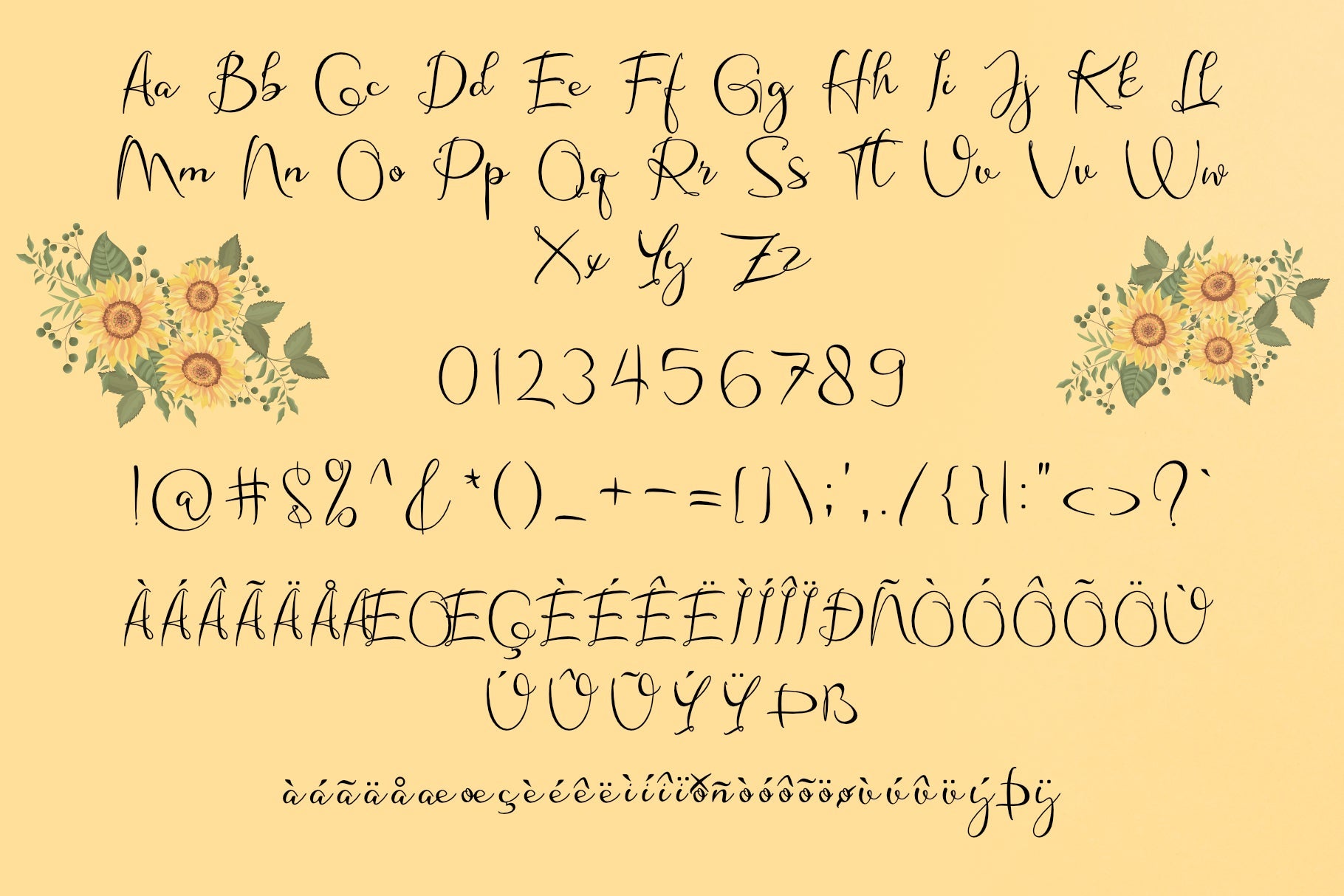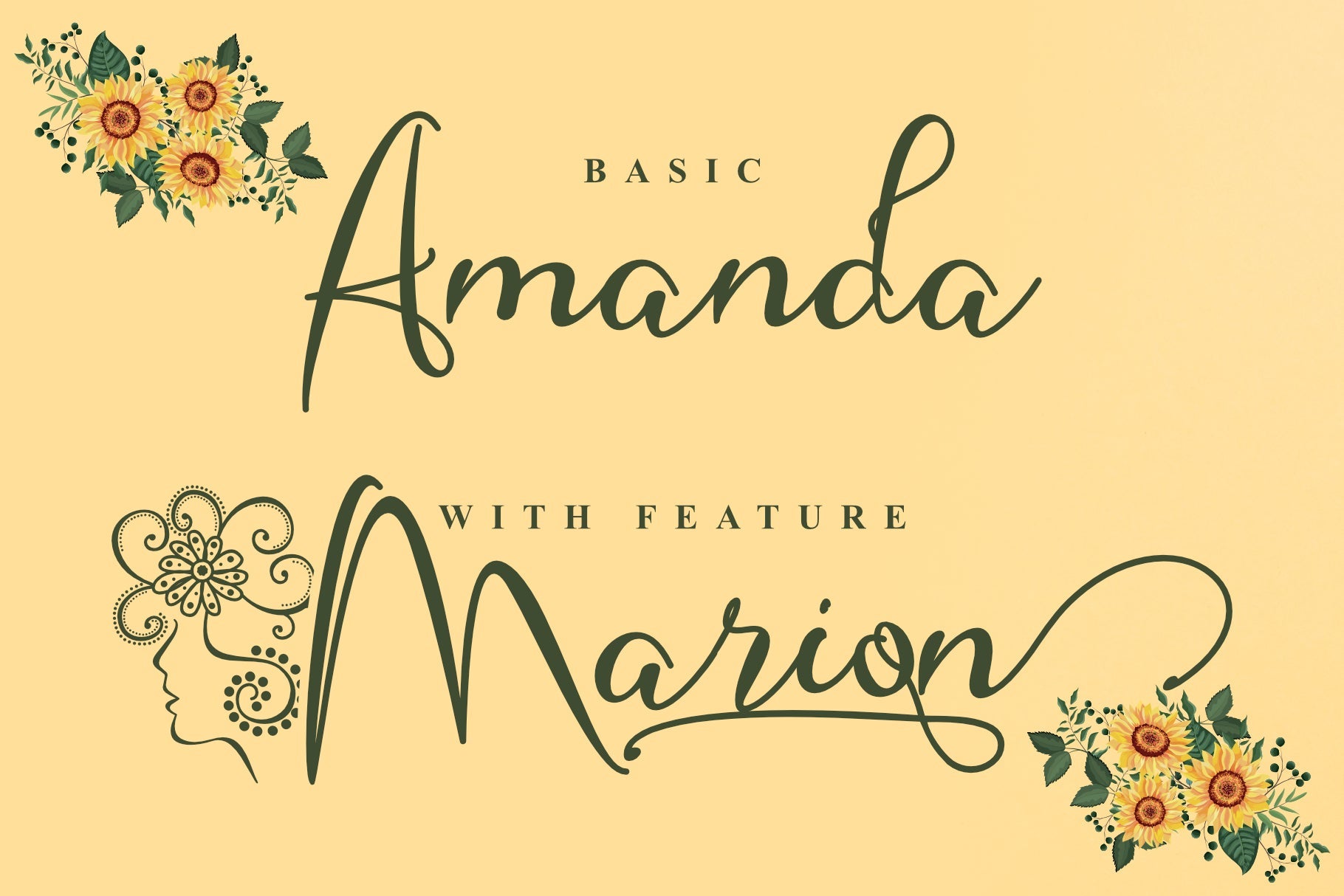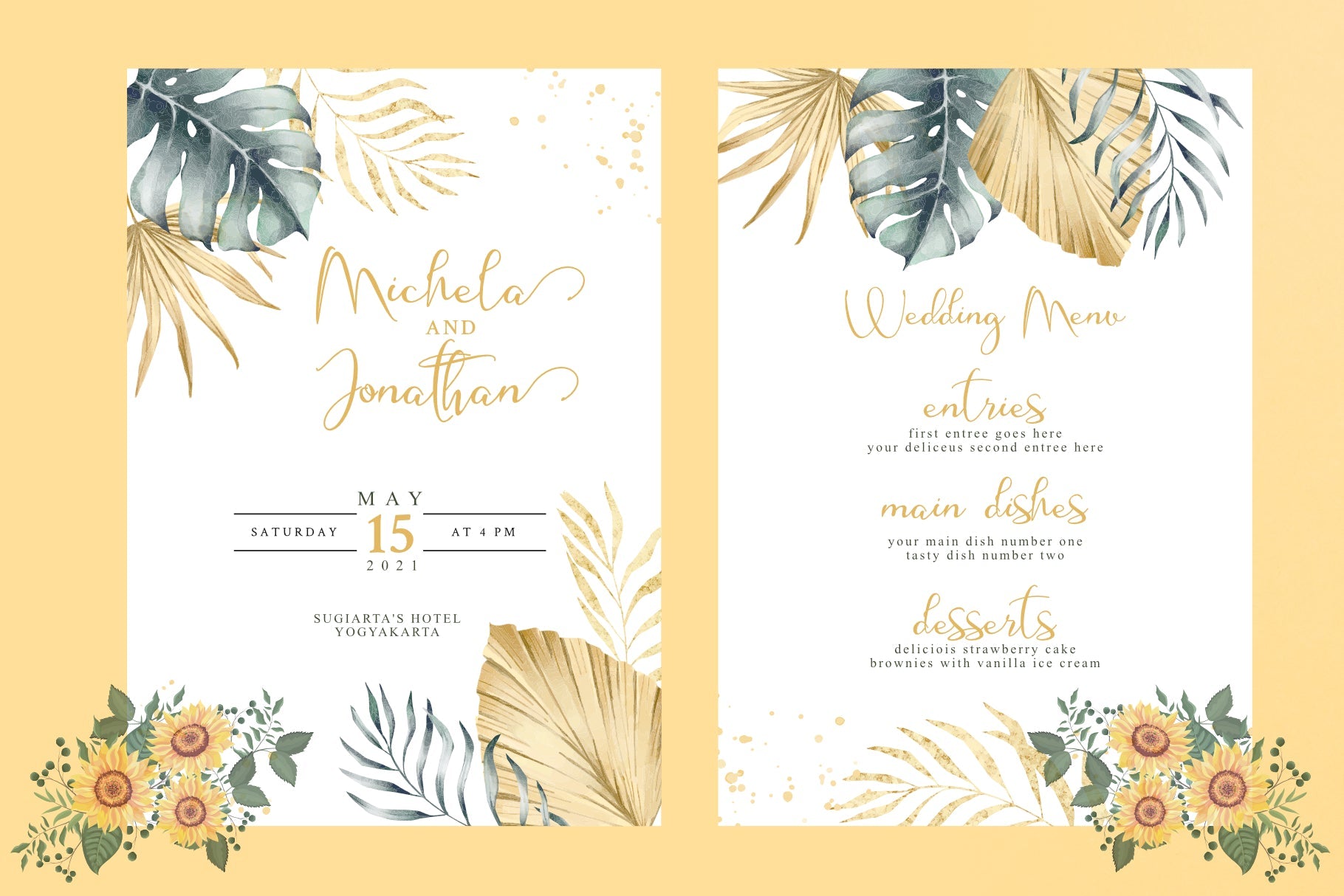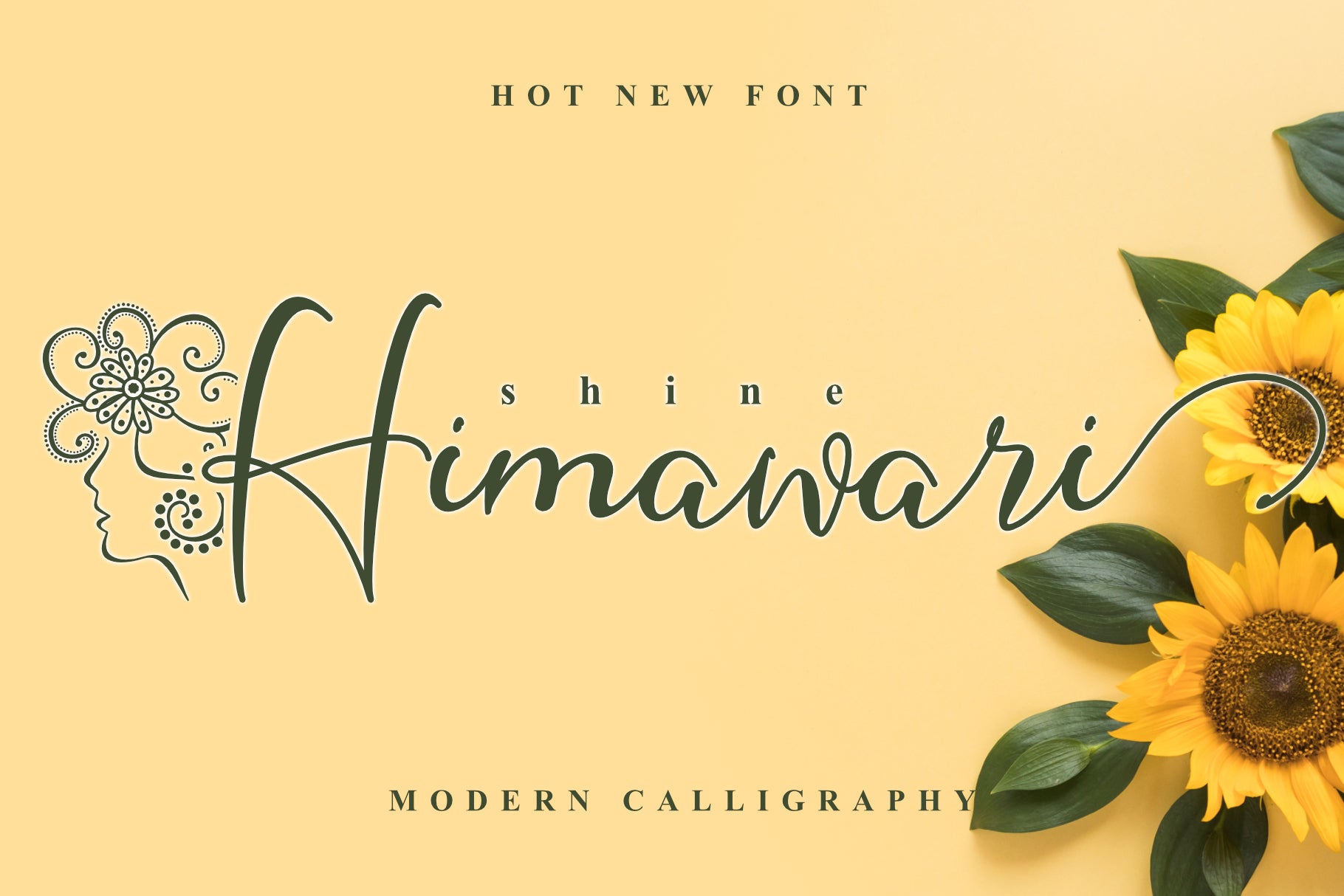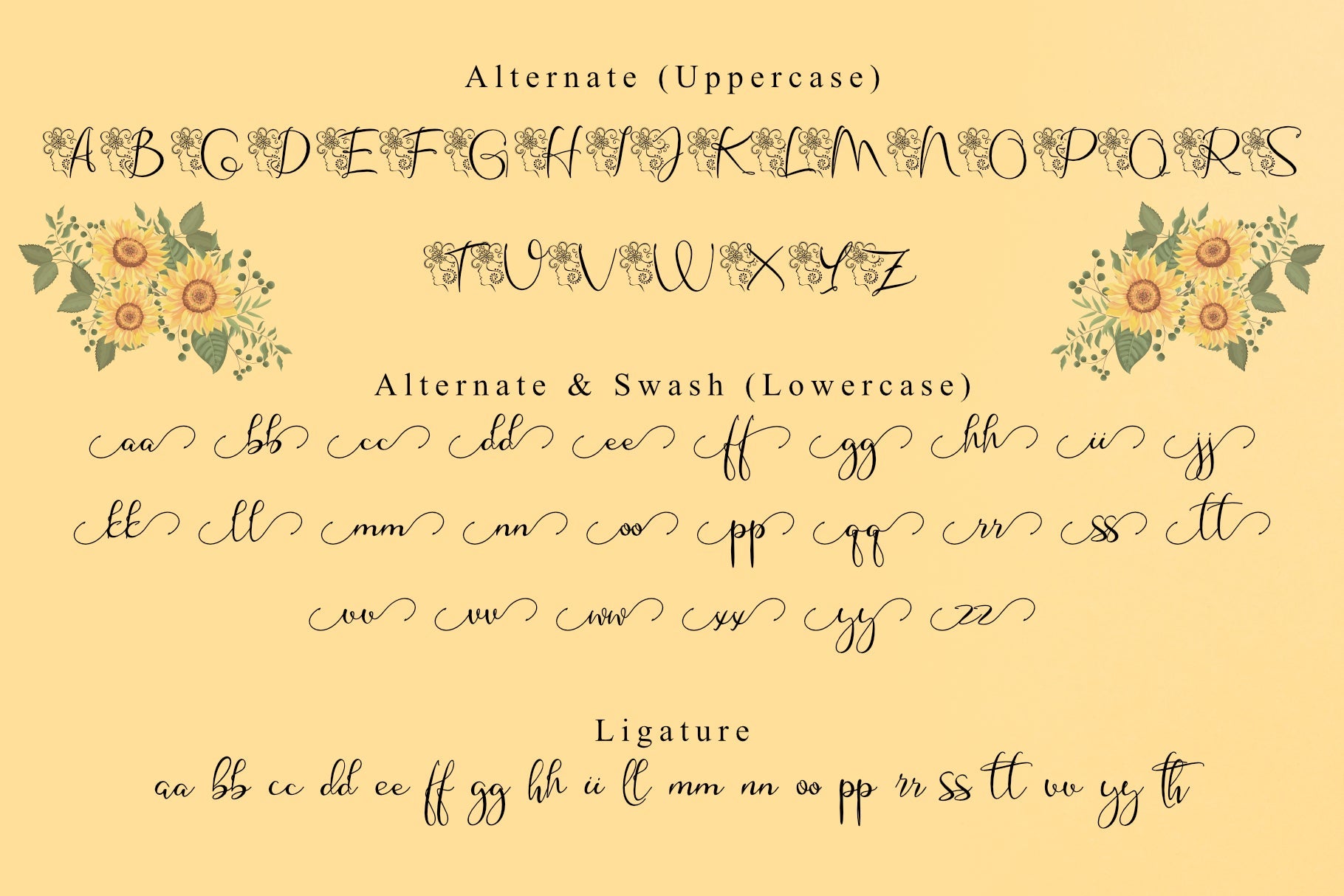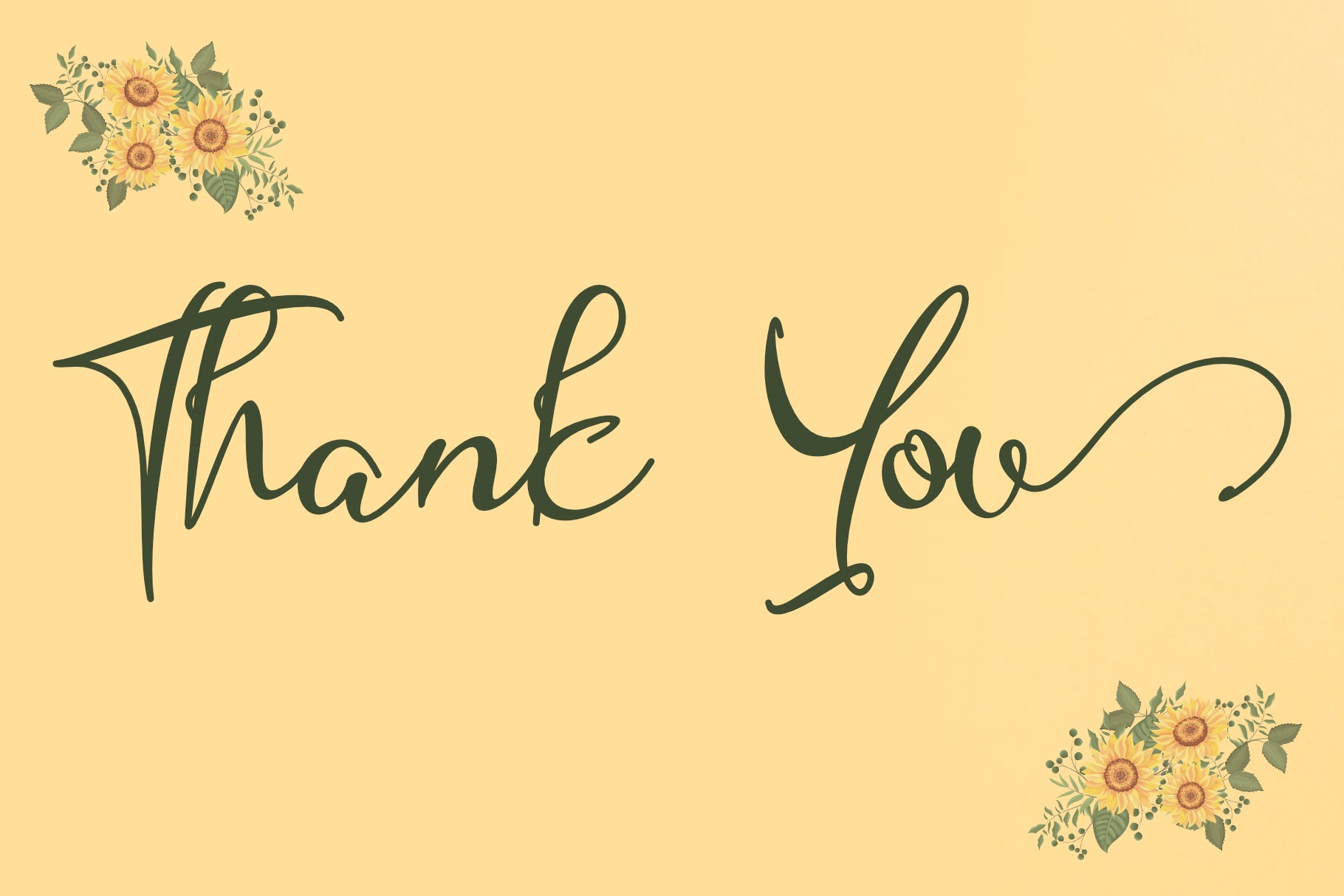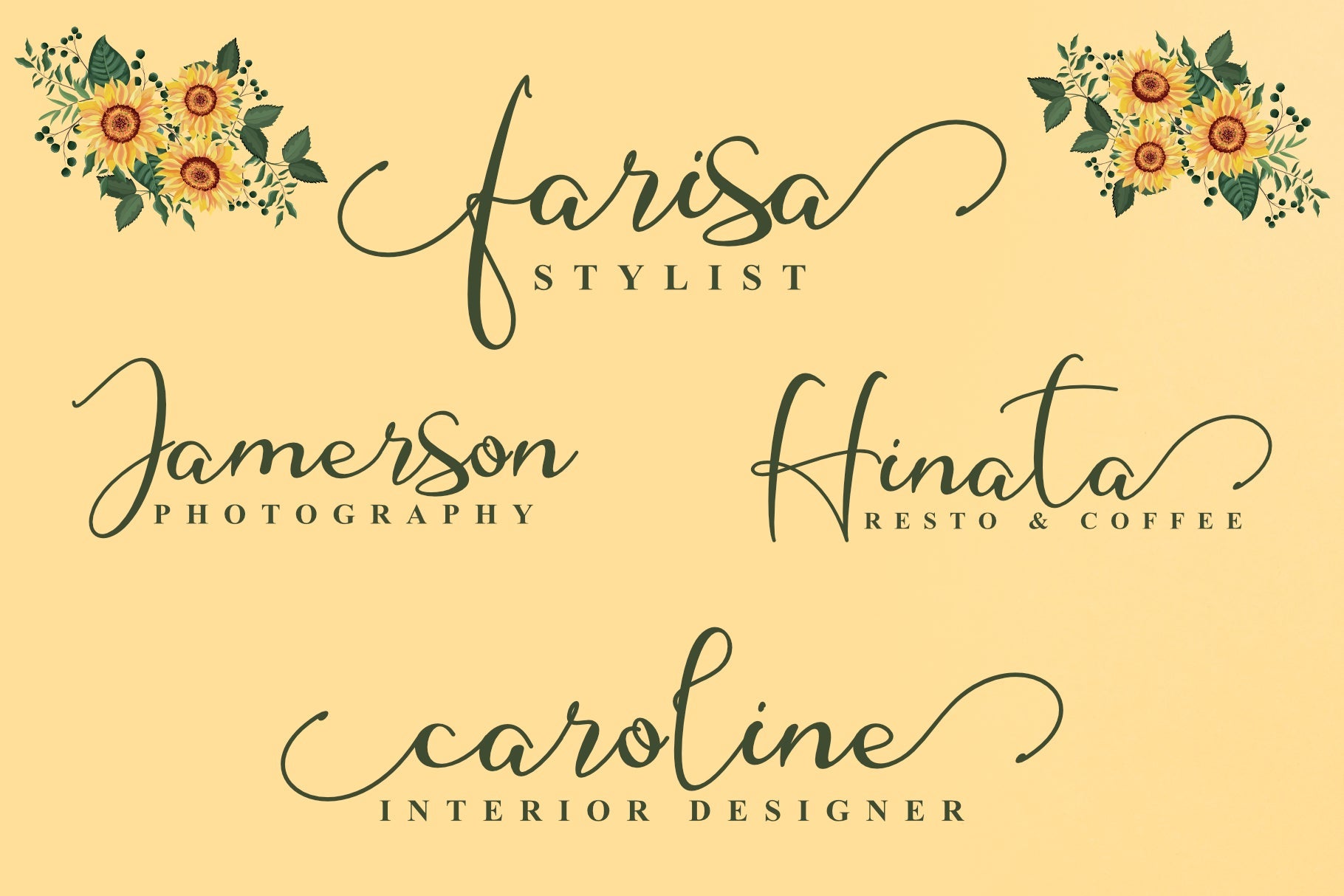
Shine Himawari
About Shine Himawari
Shine Himawari is a romantic, beautiful and light script font. It can be used for each of your favorite creations, such as wedding invitation, birthday cards, thank you cards, or pretty much any design that requires a customized touch. This font is PUA encoded, which means you can access all of the glyphs and swashes with ease!